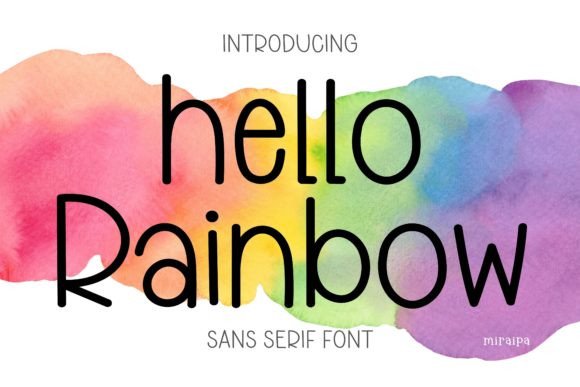
Embrace the euphoria of joyous occasions with Hello Rainbow Font, a remarkable sans serif masterpiece crafted by miraipa. This enchanting font exudes an aura of delight and exuberance, transforming your designs into captivating expressions of happiness. Immerse yourself in its whimsical charm and let your creativity soar.
With Hello Rainbow Font, you hold the key to unlocking extraordinary designs that ignite joy and capture hearts. Its playful characters dance across your screen, evoking a sense of celebration and cheer. Whether crafting wedding invitations that radiate love or designing cheerful social media graphics, this font is the perfect companion for spreading positivity and cheer.
Its timeless style ensures that your designs remain relevant and cherished for years to come. Hello Rainbow Font transcends trends, becoming an enduring symbol of happiness and lightheartedness. Elevate your branding, packaging, and marketing materials with a font that sparks smiles and leaves a lasting impression.
Hello Rainbow Font is not merely a collection of letters; it's a conduit for expressing joy and spreading cheer. Its vibrant spirit breathes life into your designs, captivating audiences with its infectious energy. Embrace the extraordinary with Hello Rainbow Font and embark on a creative journey filled with laughter, love, and pure delight.